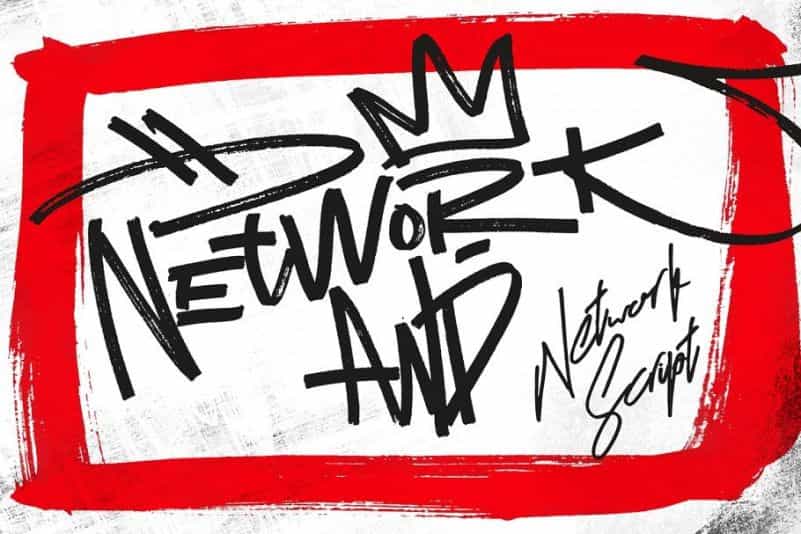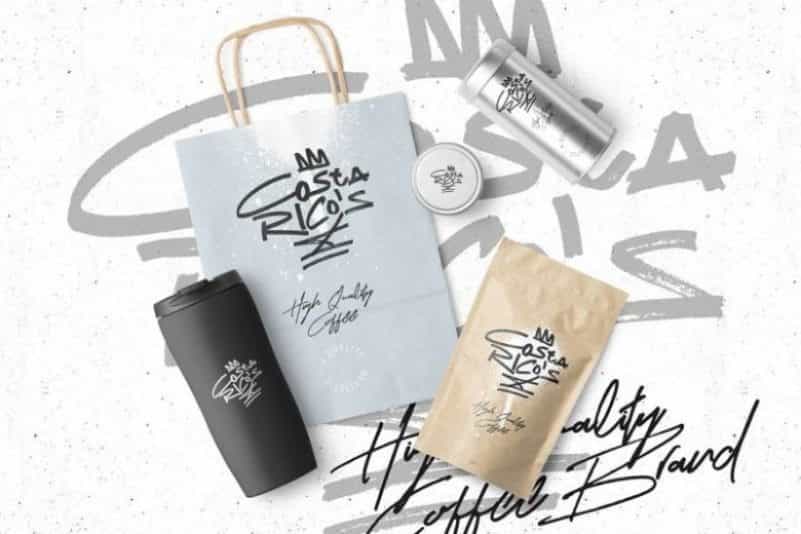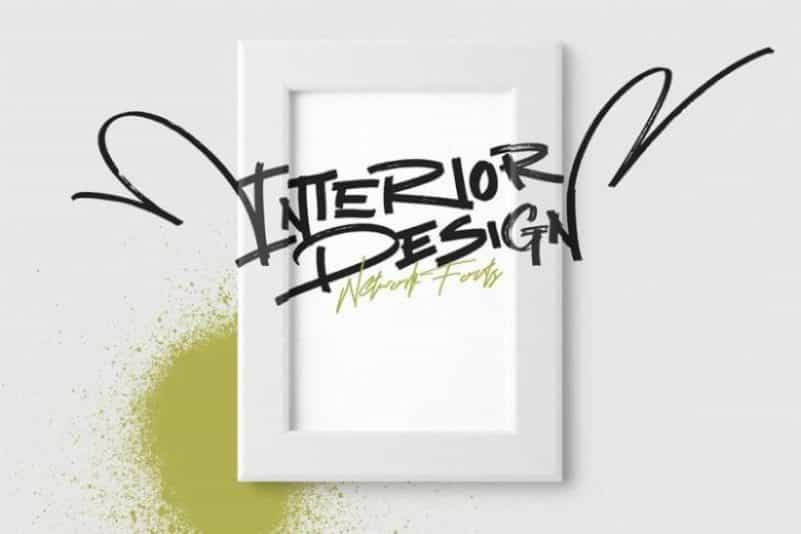
Discover Network Script Font, part of the Commercial Brush Calligraphy Graffiti collection—a versatile and unique font perfect for adding a personal touch to your projects. Download it for free and enjoy crafting designs with style, from invitations to social media posts. This font is available exclusively for personal use, giving you the freedom to create without limits. Unlock your creativity with Network Script Font today!
Network Font can be categorized as a handbrush typeface. This font is created from hand writing using a brush pen and then it is digitized. That way you can produce an attractive and real handwriting quickly and without a problem. It is created and distributed by Yasir Ekinci.